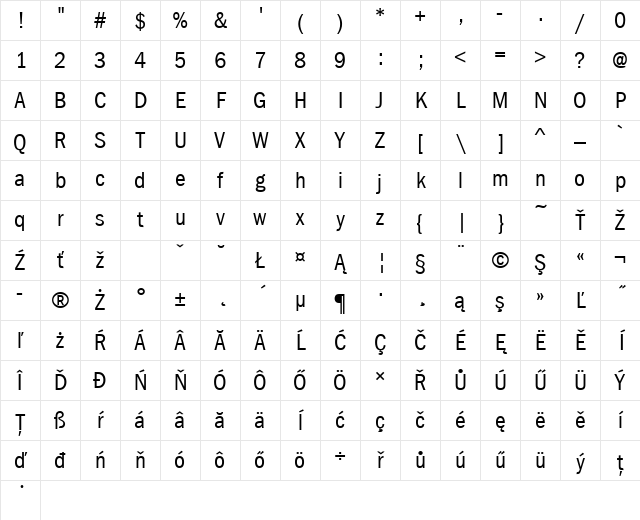
FranklinGotItcTEEBooCon Regular
FranklinGotItcTEEBooCon Family
FranklinGotItcTEEBooCon Regular
Design Context for FranklinGotItcTEEBooCon
FranklinGotItcTEEBooCon is a composed and adaptable typeface that performs quietly and consistently across a wide range of design contexts.